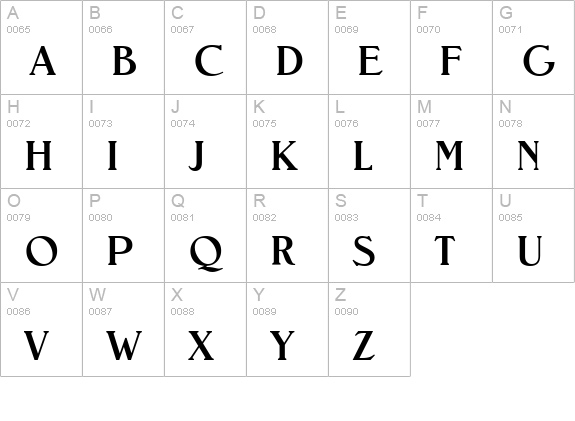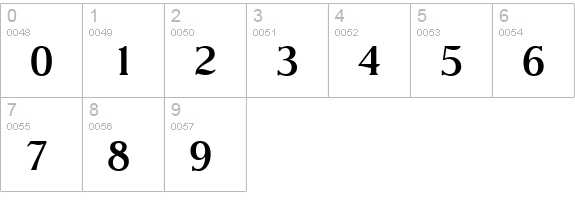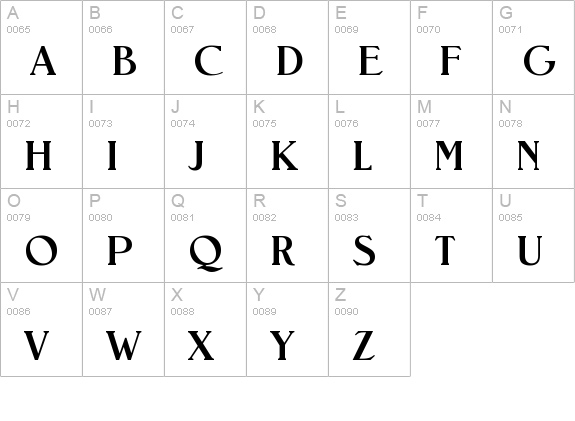
NevadaSerial-Medium-Regular is a balanced, medium-weight variant in the NevadaSerial typeface family \xE2\x80\x94 well suited to sub-headlines, navigation, and balanced editorial work.
NevadaSerial-Medium-Regular font is a versatile and modern typeface that exudes sophistication and clarity. Its clean lines and balanced proportions make it suitable for a wide range of design projects, from branding to editorial layouts. The medium weight strikes the perfect balance between elegance and readability, making it a go-to choice for designers looking for a reliable and stylish font option. The best part? NevadaSerial-Medium-Regular font is available for free download at FontsMarket.com. This means you can easily access this high-quality font without any cost, making it a valuable addition to your font library. Whether you're working on a website, poster, or logo design, NevadaSerial-Medium-Regular font is sure to elevate your project with its timeless appeal and professional finish. Download it today and see the difference it can make in your designs!